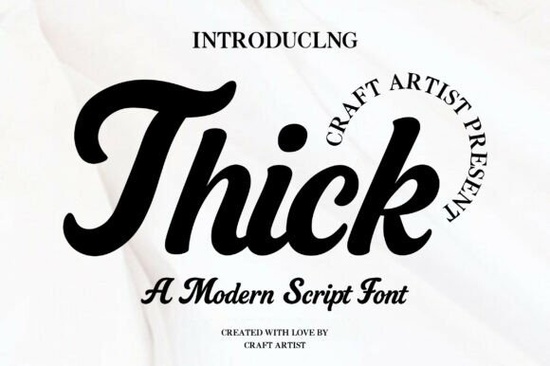
If you're looking for a script font that feels both nostalgic and fresh, Thick Font might be exactly what your next project needs. With its bold strokes, smooth curves, and relaxed handwritten rhythm, it brings a warm, retro-inspired energy without feeling dated. Whether you’re designing a logo for a small coffee shop, creating vintage-style product labels, or personalizing invitations, Thick delivers personality with clarity.
What makes Thick Font stand out for creative projects?
Unlike overly ornate scripts that can get lost at small sizes, Thick Font maintains legibility thanks to its generous weight and clean letterforms. The “chunky” quality gives it presence ideal for display use while the subtle bounce in its baseline adds that playful, hand-drawn charm. It’s especially effective when you want something friendly but confident, like for T-shirt slogans, social media graphics, or packaging that needs to catch the eye on a crowded shelf.
You’ll find it works well alongside minimalist layouts or as a focal point against textured backgrounds (think kraft paper, watercolor washes, or grainy overlays). And because it’s a single-style font with consistent stroke width, pairing it with a clean sans-serif is effortless no need to overthink contrast.
Who should consider using Thick Font?
If your aesthetic leans toward mid-century modern, cottagecore, or cozy minimalism, Thick complements those styles naturally. It avoids being too cutesy or overly formal striking a balance that’s increasingly hard to find in script fonts.
How does it compare to other handwritten scripts?
Not all script fonts carry the same mood. For example, if you’ve used something like Shake Font, you know it has more dramatic swashes and variable line width great for elegance, but less suited for everyday branding. Thick, by contrast, keeps things grounded and approachable.
Similarly, fonts like Sweet Casual offer a lighter, airier feel, while Mistletoe Cottage leans into rustic whimsy with tapered ends and delicate loops. Thick doesn’t try to do everything it commits to boldness with softness, which is why it’s so reliable for commercial use.
And if you’re working on wedding stationery but want something less traditional than Whimsical Wedding, Thick could be a great alternative for rehearsal dinner invites or welcome bags where formality isn’t required.
For a gentler, more fluid option, Handwriting Font mimics natural pen movement closely but again, lacks the visual weight Thick provides when you need your words to stand out.
Practical tips for using Thick Font effectively
Because of its density, avoid using Thick in long paragraphs or tiny sizes it’s a display font first and foremost. Stick to headlines, short phrases, or single words for maximum impact.
Try these simple tricks:
- Add subtle letter-spacing (tracking) if letters feel too tight just 10–20 units often helps.
- Use all caps sparingly; the lowercase forms have more character and flow.
- Layer with texture: overlaying a slight paper grain or ink bleed effect enhances its handmade vibe.
- Limit color choices: earthy tones (olive, terracotta, cream) or classic black/white let the shape shine without distraction.